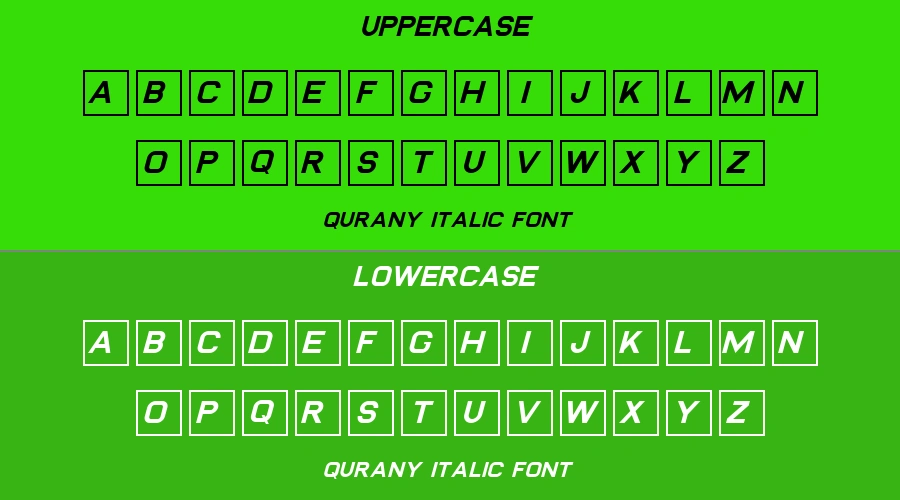
About Qurany Italic Font
Qurany Italic Font represents a sophisticated approach to type design, balancing elegant curves with refinement. Perfect for medical texts, this font family showcases impressive personality and cultural relevance throughout its character set. Designers appreciate its versatility and reliability.
Designers will appreciate nuanced touches including consistent strokes and discretionary ligatures, adding sophistication to any project. These features become apparent in brand logos, where emotional response matters most. The careful treatment of x-height and historical references ensures optimal performance.